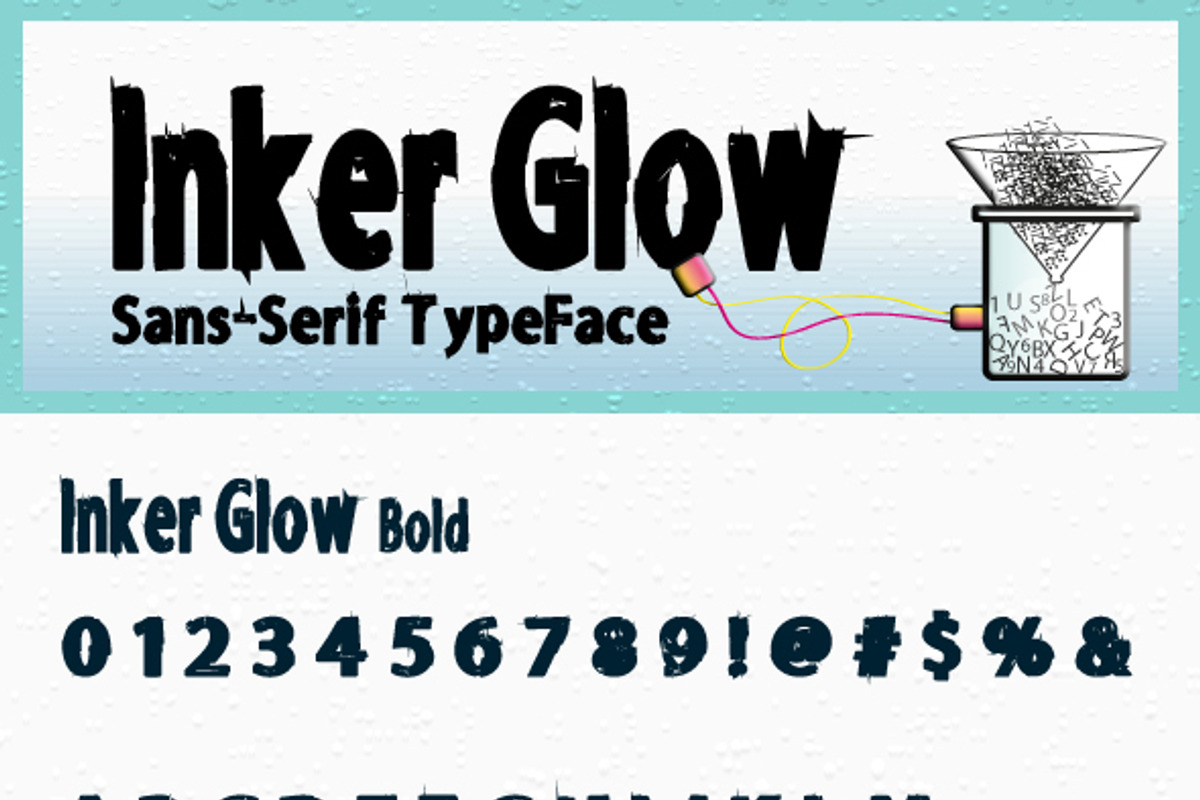
Inker Glow Bold and Bold Italic
This font is a sans-serif typeface, elegant & strong, retro-inspired but modern and minimalist, designed to work well at medium-to-large size, ideal for posters/flyers, headlines, logotypes.